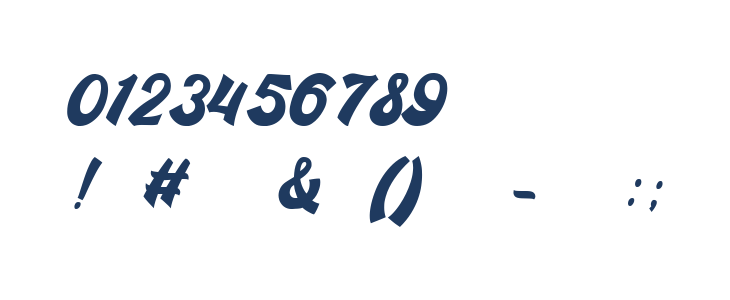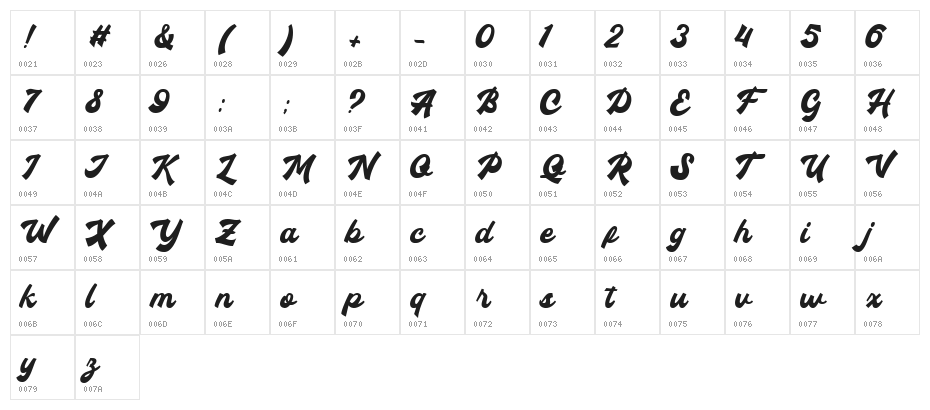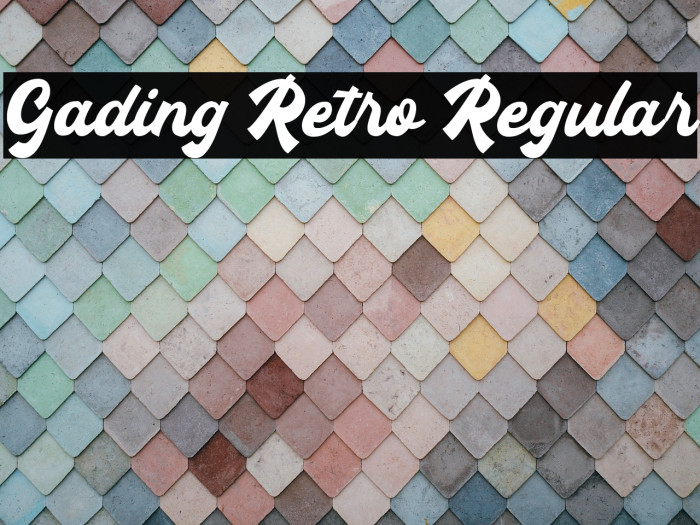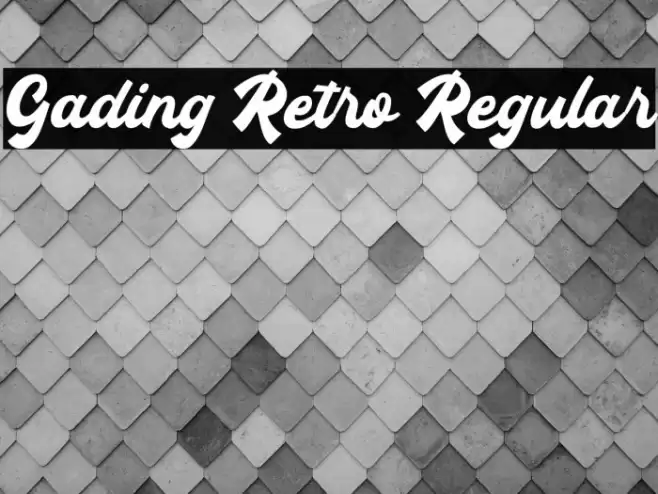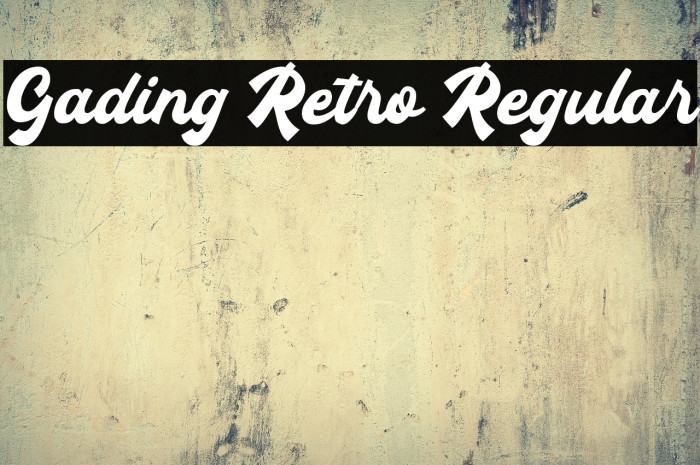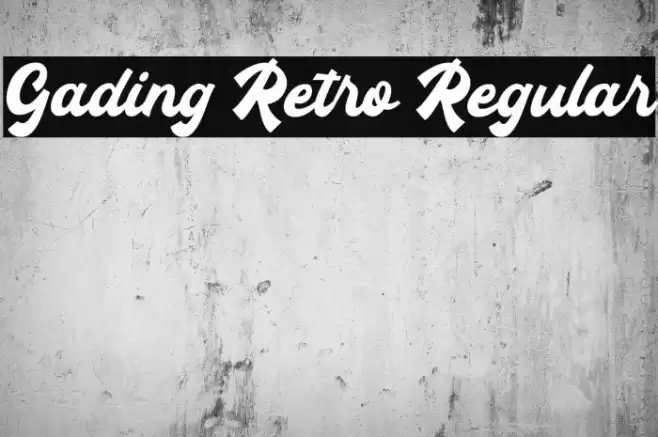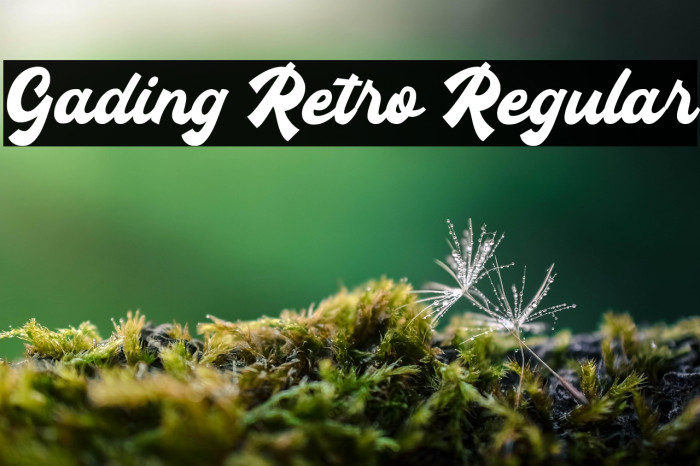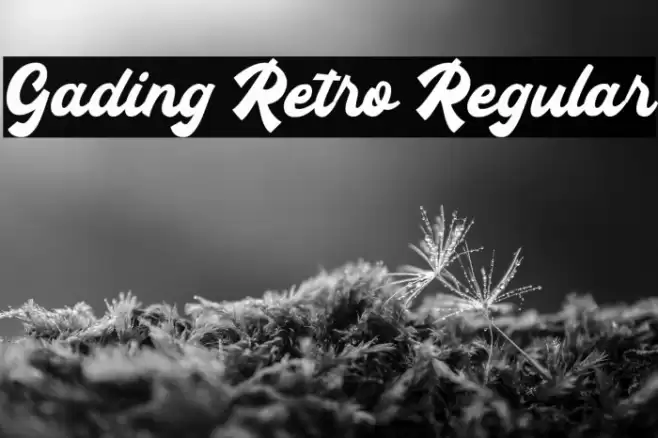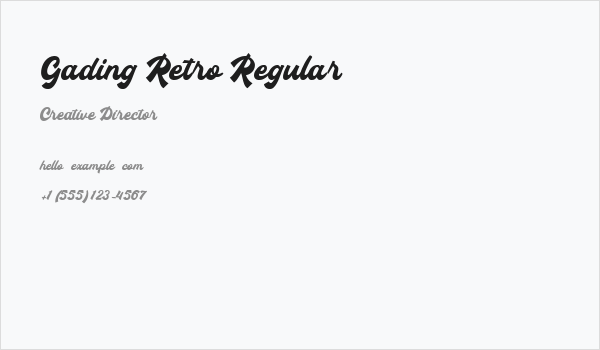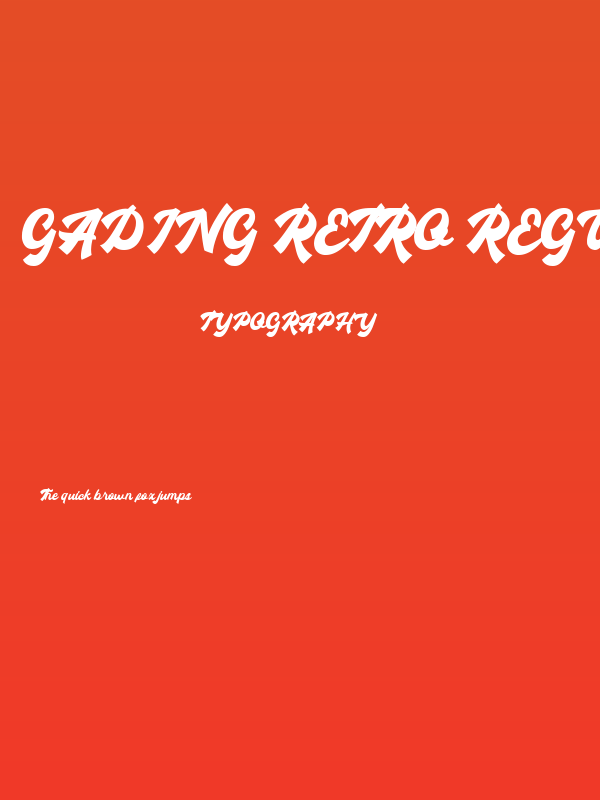
Gading Retro Regular Font
Gading Retro Regular Description
This font features a bold, retro-inspired script style with a dynamic and flowing appearance. The letters are connected, giving it a cursive feel, yet the strokes are thick and confident, providing a strong visual impact. The uppercase letters are particularly striking with their angular and sharp edges, while the lowercase letters maintain a smooth and rounded form. The numerals and special characters are consistent with the overall style, ensuring a cohesive look across all text elements. This font is ideal for projects that require a vintage or nostalgic touch, while still maintaining a modern edge.
| Overall Style | Retro, Decorative |
| Proposed Projects | Ideal for vintage-themed posters, branding, logos, and packaging designs. |